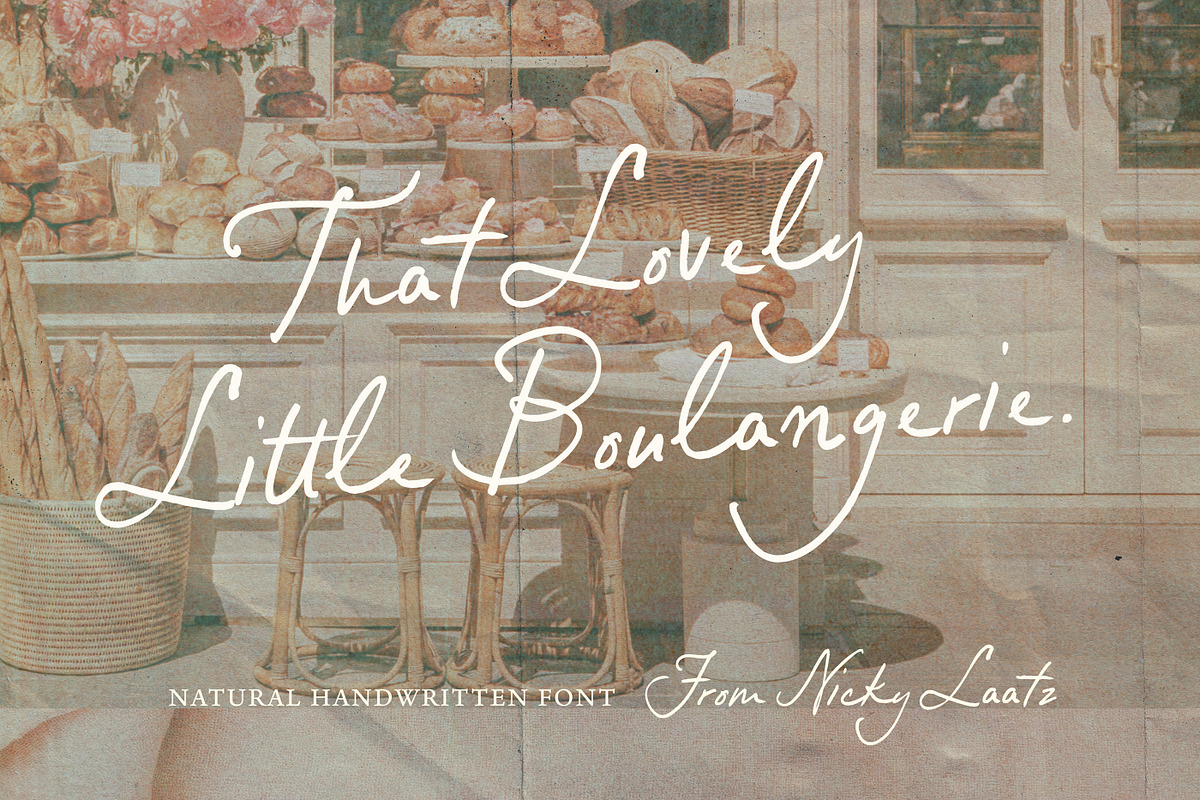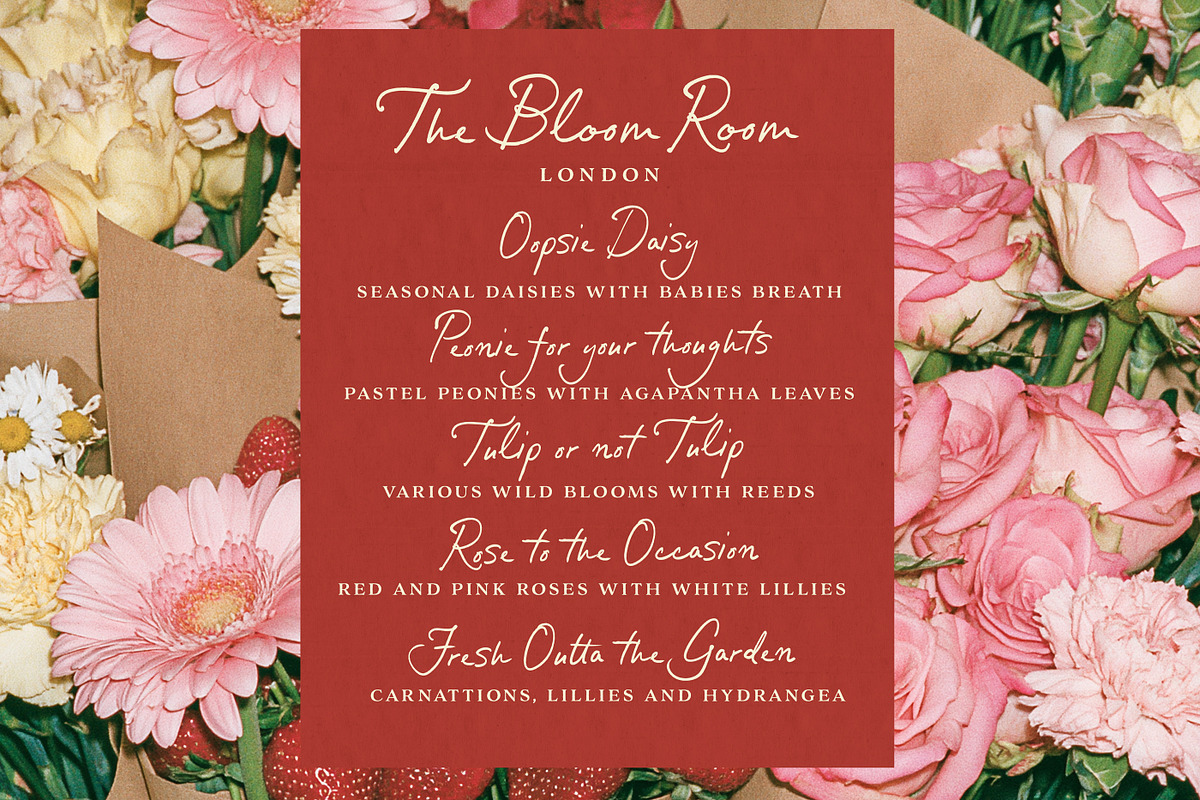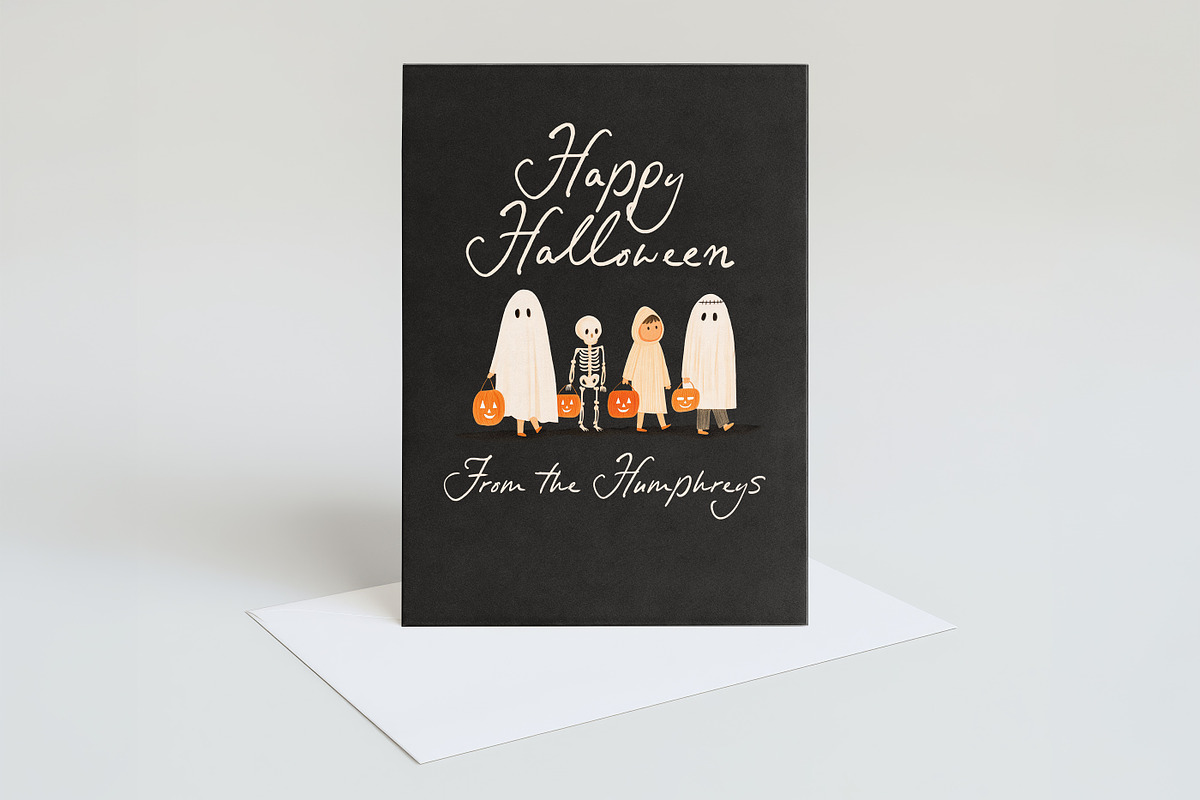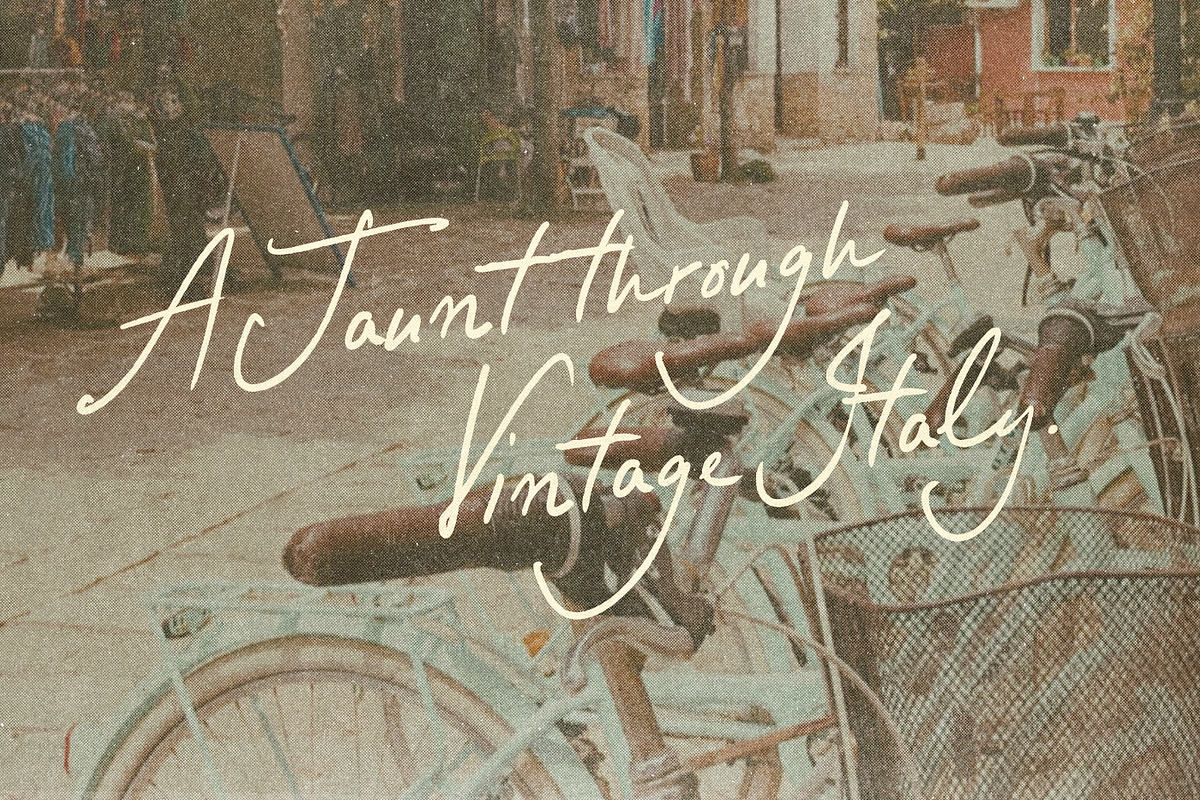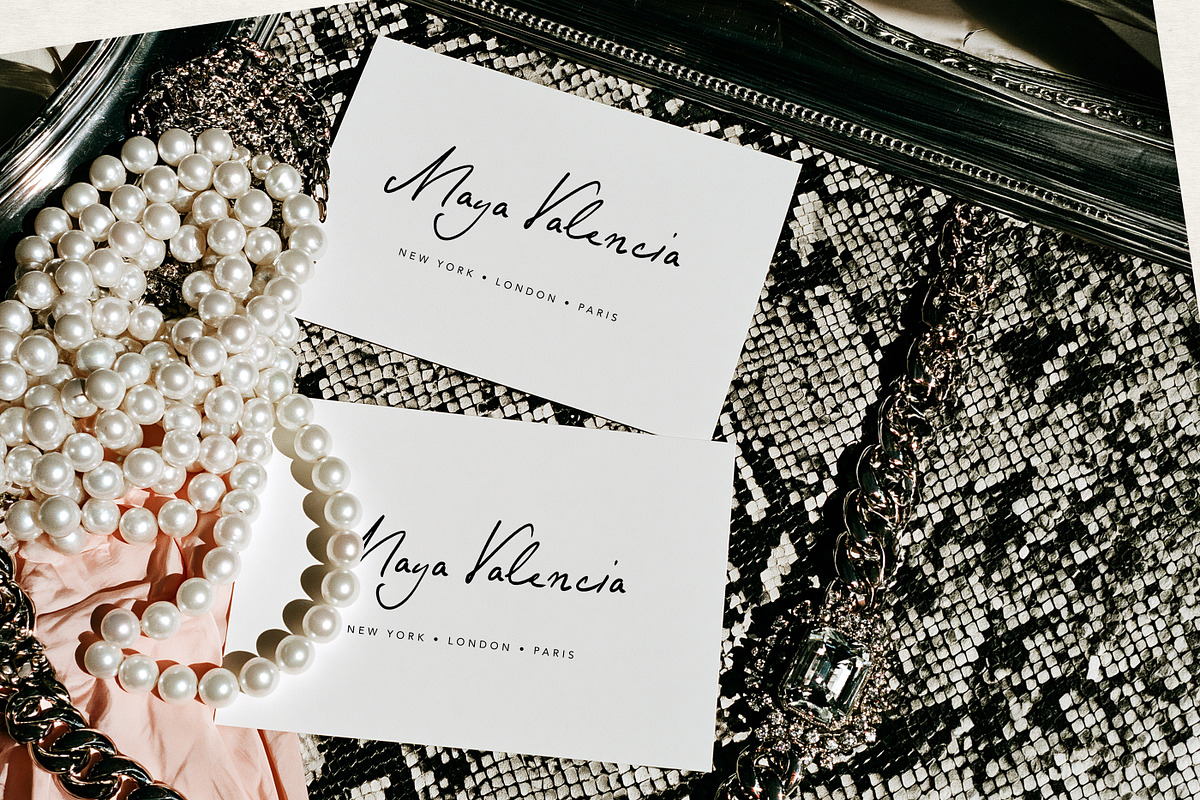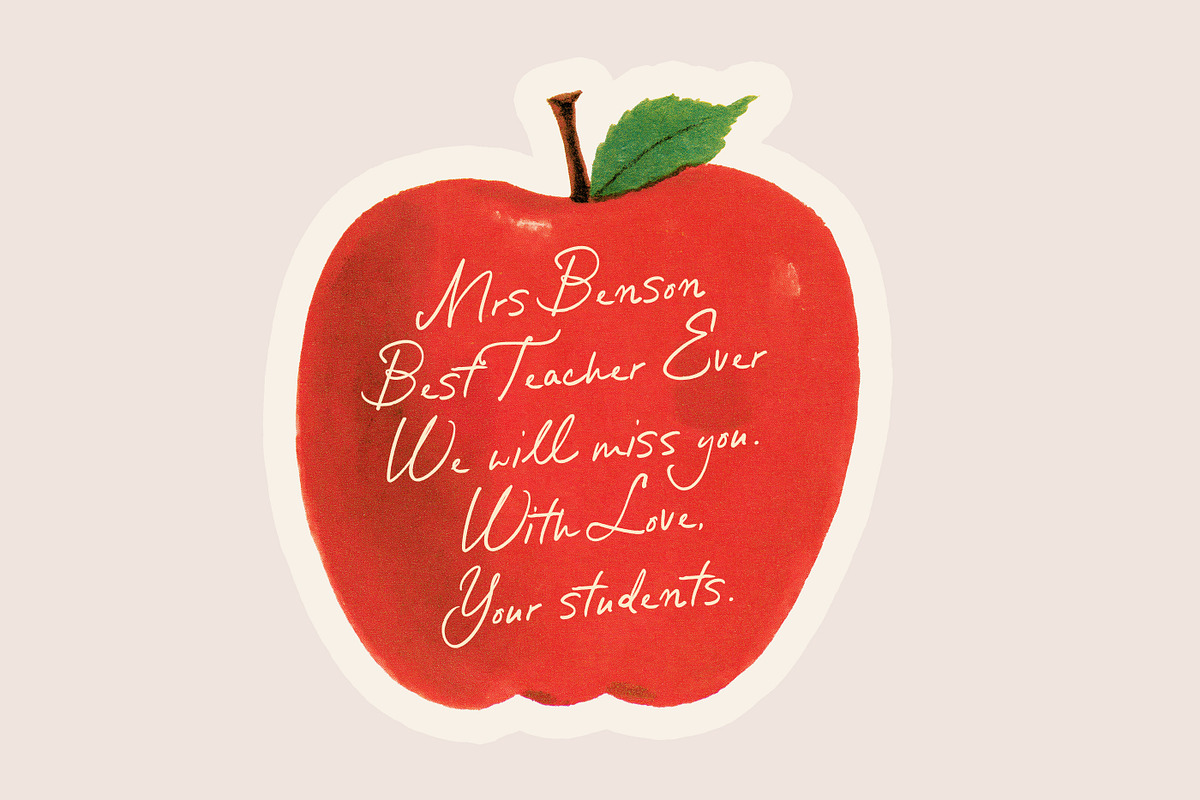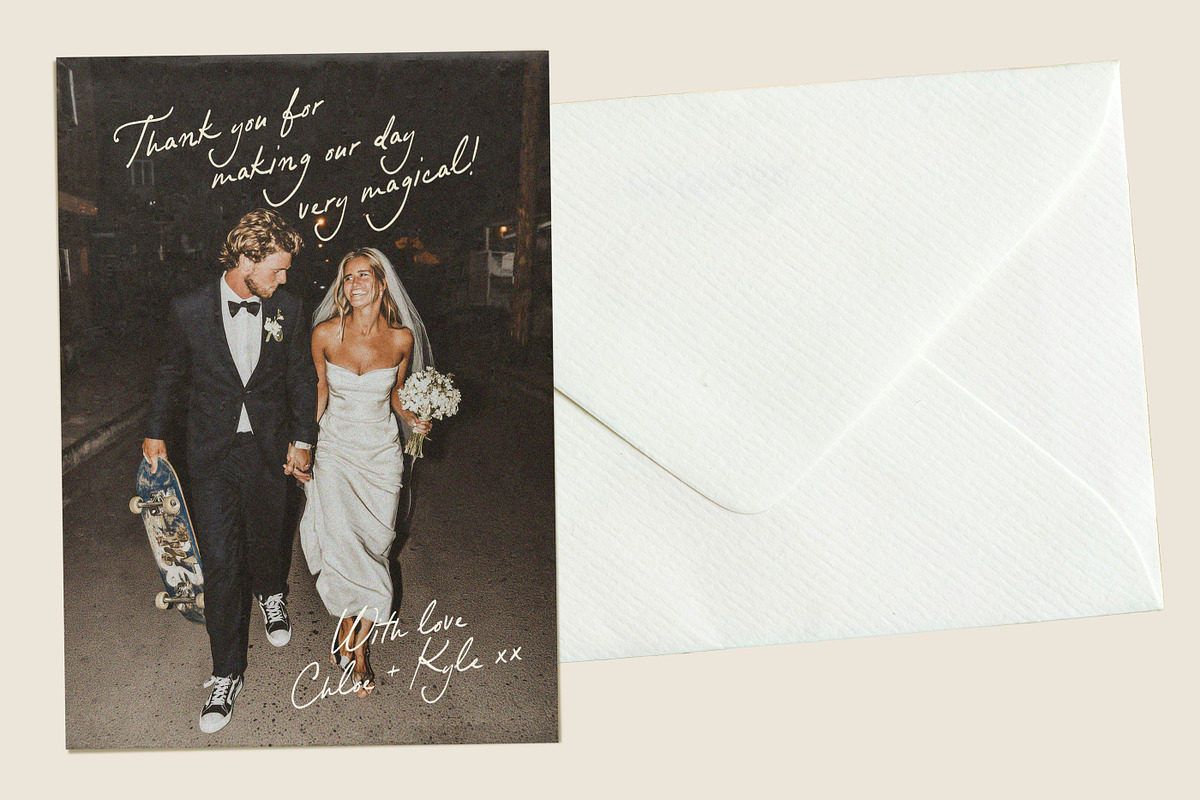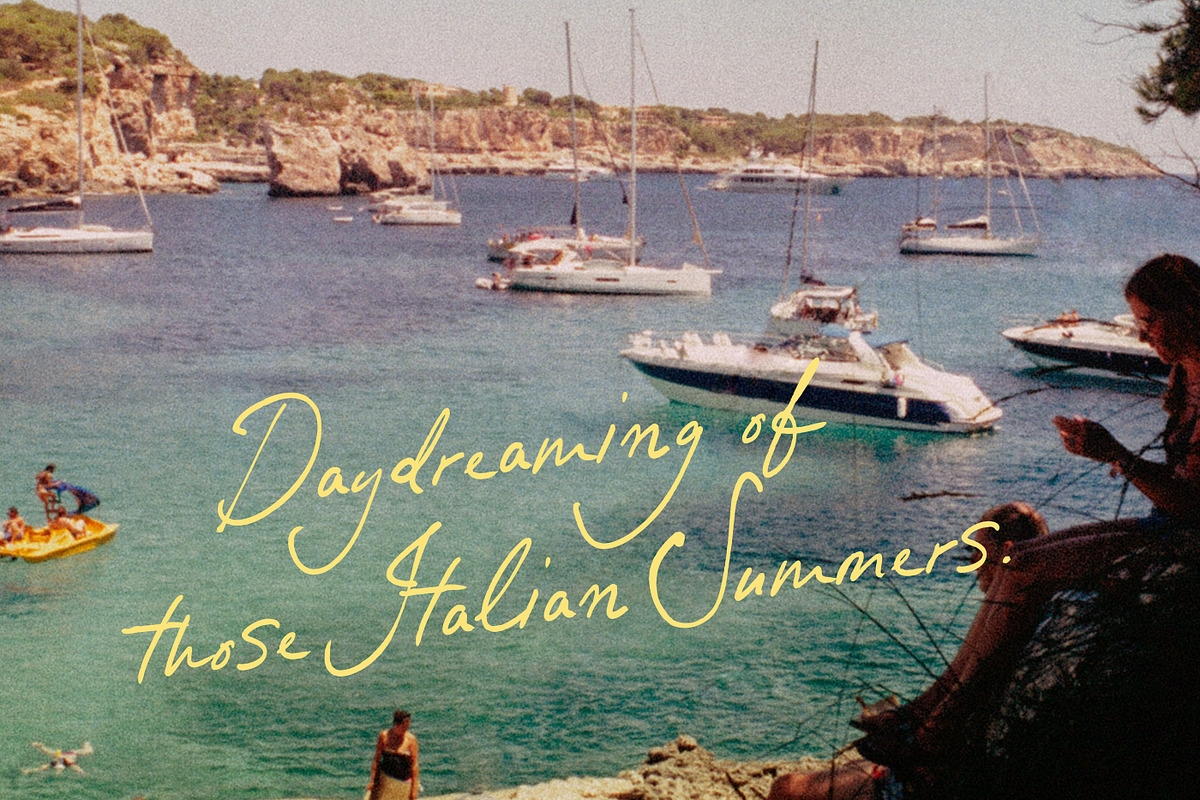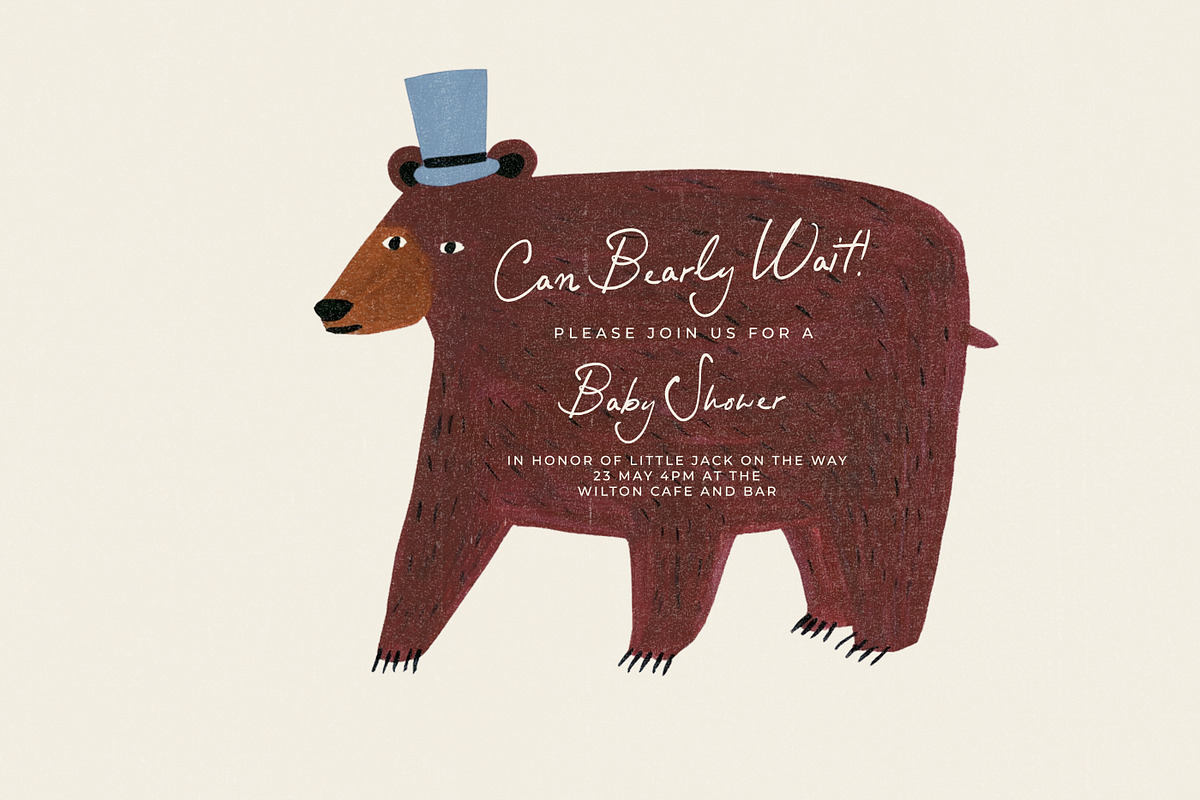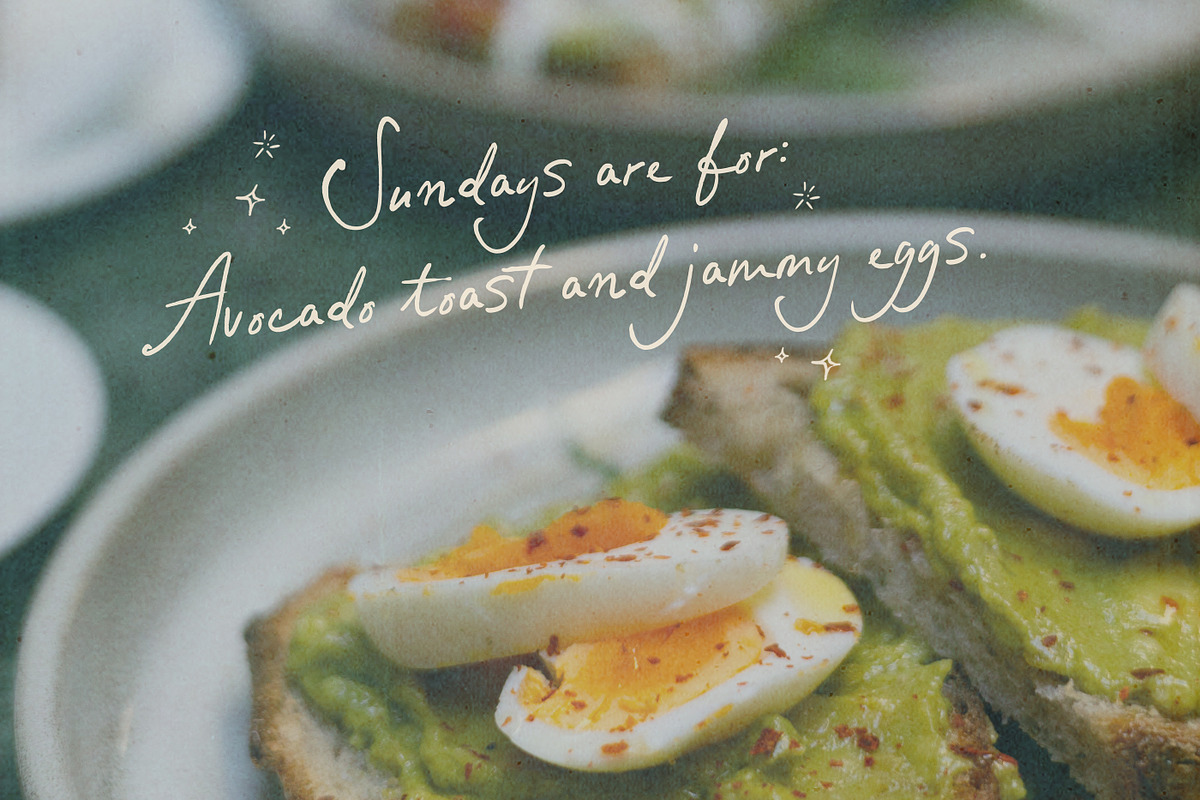
Little Boulangerie Handwritten Font
Say hello to "Little Boulangerie" - A sweet little handwritten script - delightfully quaint, warm and spontaneous. It's long sweeping strokes , and rough textures edging , give it an easy confidence, and the natural handwritten feel keep things warm and human-made.
There’s a little old-world elegance about it, but nothing stuffy - more modern, expressive and oh so very chic!
Perfect for chic invitations, expressive quotes, organic branding, heart-felt captions, romantic cards, easy-going social media posts, and whimsical weddings.
Extra alternates and natural looking ligatures are included to make it look even more natural - so make sure you have them on as you type. PUA encoded for those without Opentype capable software.
It comes in 2 extra variant each with slightly different slants.